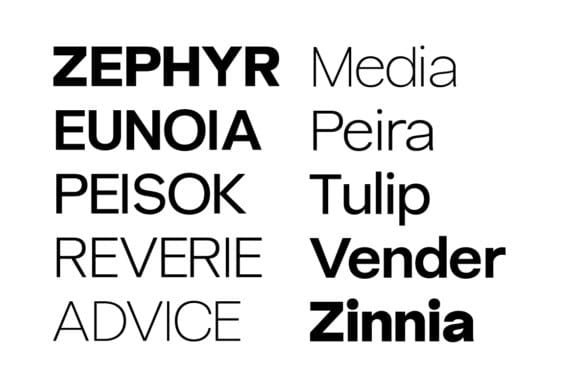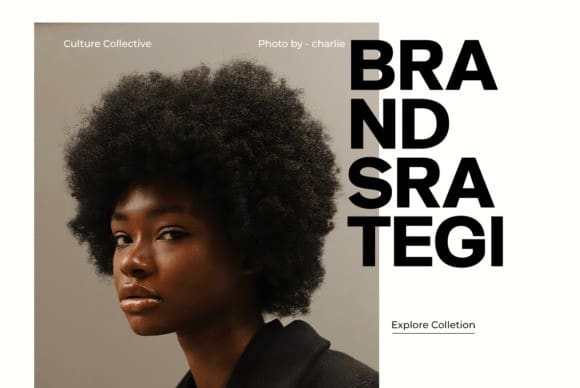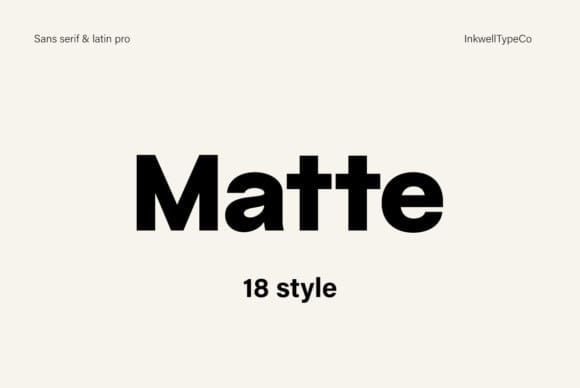
Matte Font Family
Matte Font Family is a font family that combines boldness with modern design cleanliness. Designed with clarity and precision, Matte offers versatile beauty, making it an ideal choice for a variety of design needs.